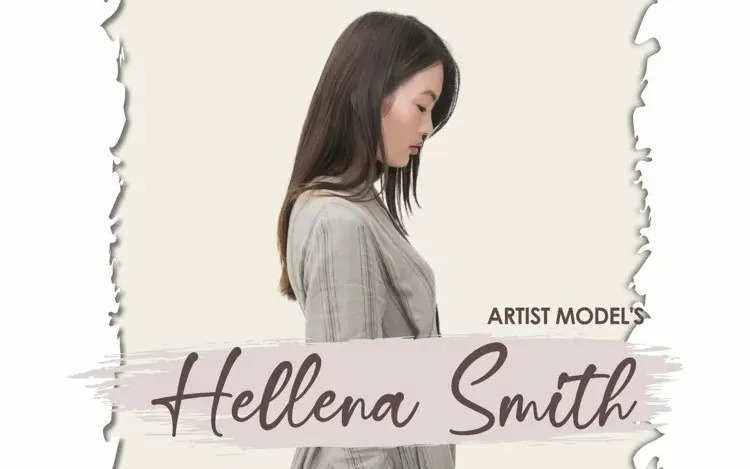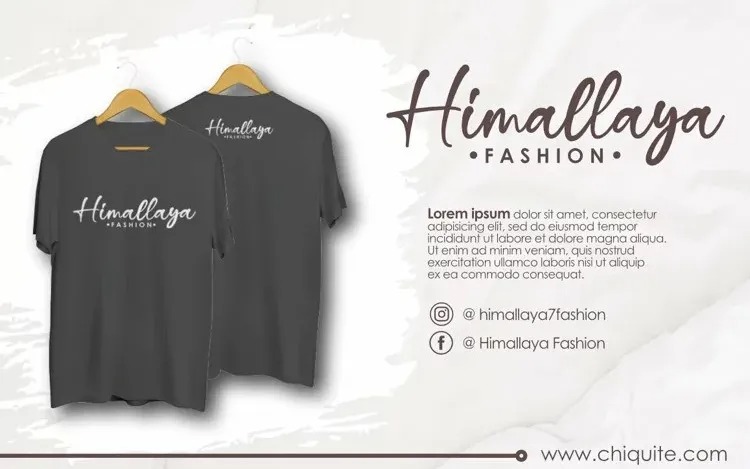
Chiquite Script Font
It’s a new casual modern script font manufactured by Ditoollis Project. This font describes about girly, feminist, elegant, dynamic, humanist, easy to use and will bring a good harmony when the letters are connected and paired each other. This font is suitable for business cards, logos, covers, comics, invitations, etc.